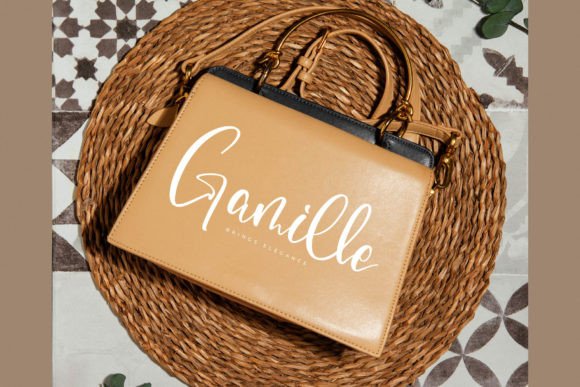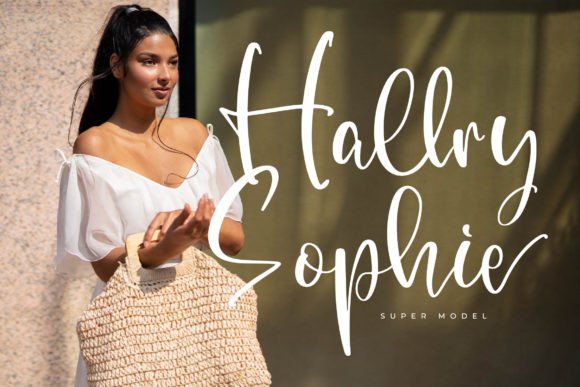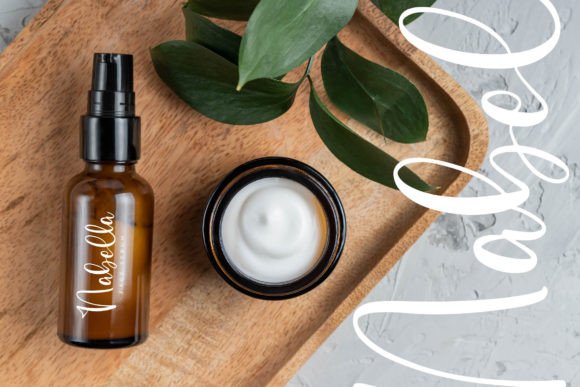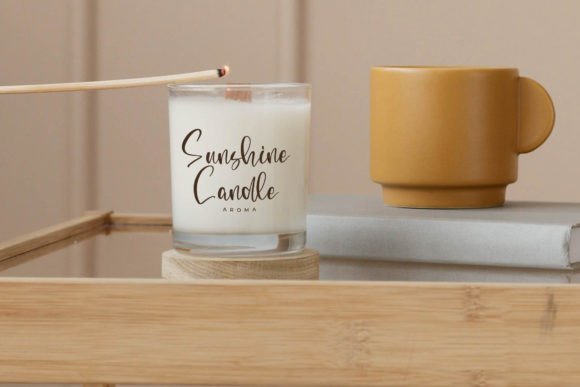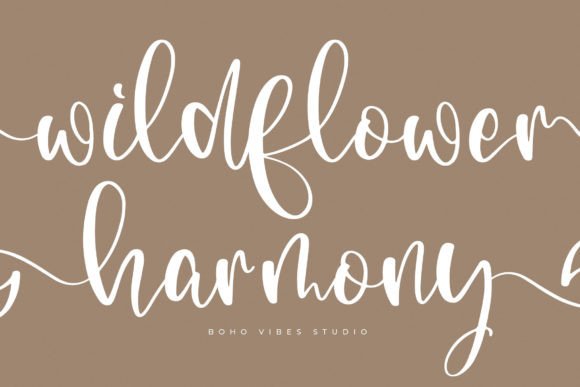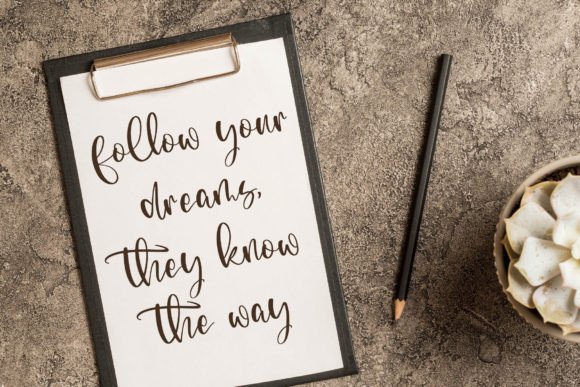
Introducing Ambrella Mildflower Font: Elevate Your Designs with Luxury Script
In the world of design, typography plays a crucial role in conveying the tone and aesthetic of a project. For designers and crafters seeking to add a touch of luxury and elegance to their work, the Ambrella Mildflower Font is an exceptional choice. This beautiful handwritten font, crafted by Letterena, is a versatile and high-end script font perfect for a wide range of applications.
What is Ambrella Mildflower Font?
Ambrella Mildflower Font is a luxury script font that exudes sophistication and refinement. Its elegant, flowing lines and delicate curves make it an ideal choice for designers looking to create stunning visual content. Whether you’re working on a logo, branding project, or any other design that requires a touch of luxury, this font is sure to impress.
Key Features of Ambrella Mildflower Font
- Beautiful Handwritten Style: The Ambrella Mildflower Font boasts a unique, handwritten style that adds a personal touch to any design.
- Luxury Script: With its elegant lines and curves, this font is perfect for creating high-end designs that require a sophisticated look.
- Versatile: The Ambrella Mildflower Font can be used for a wide range of projects, from logos and branding to packaging, posters, and more.
- Easily Customizable: The font’s flexibility allows for easy customization to fit your specific design needs.
Ideal Projects for Ambrella Mildflower Font
This luxury script font is suitable for various projects, including:
- Logos and Branding Projects: Create a lasting impression with a sophisticated logo that reflects your brand’s elegance and refinement.
- Homeware Designs: Add a touch of luxury to your homeware designs, such as stationery, wall art, and decorative items.
- Product Packaging: Elevate your product packaging with a high-end font that conveys quality and sophistication.
- Mugs, Quotes, Posters, and More: Use the Ambrella Mildflower Font to create stunning quotes, posters, mugs, and other promotional items.
- T-Shirts and Apparel: Design beautiful and elegant apparel with this versatile font.
- Book Covers and Name Cards: Create eye-catching book covers and name cards that make a lasting impression.
- Invitation Cards and Greeting Cards: Add a touch of luxury to your invitation and greeting cards with this beautiful font.
- Labels and Photography: Use the Ambrella Mildflower Font to create elegant labels and watermarks for your photography projects.
Why Choose Ambrella Mildflower Font?
With the Ambrella Mildflower Font, you can:
- Enhance Your Designs: Add a touch of luxury and sophistication to your designs with this elegant font.
- Stand Out from the Crowd: Create unique and eye-catching designs that set you apart from others.
- Save Time and Effort: With its versatility and ease of use, this font saves you time and effort in finding the perfect typography for your projects.
In conclusion, the Ambrella Mildflower Font is an exceptional choice for designers and crafters seeking to add a touch of luxury and elegance to their work. Its beautiful handwritten style, versatility, and ease of use make it an ideal font for a wide range of projects. Whether you’re working on a logo, branding project, or any other design that requires a high-end script font, the Ambrella Mildflower Font is sure to impress.